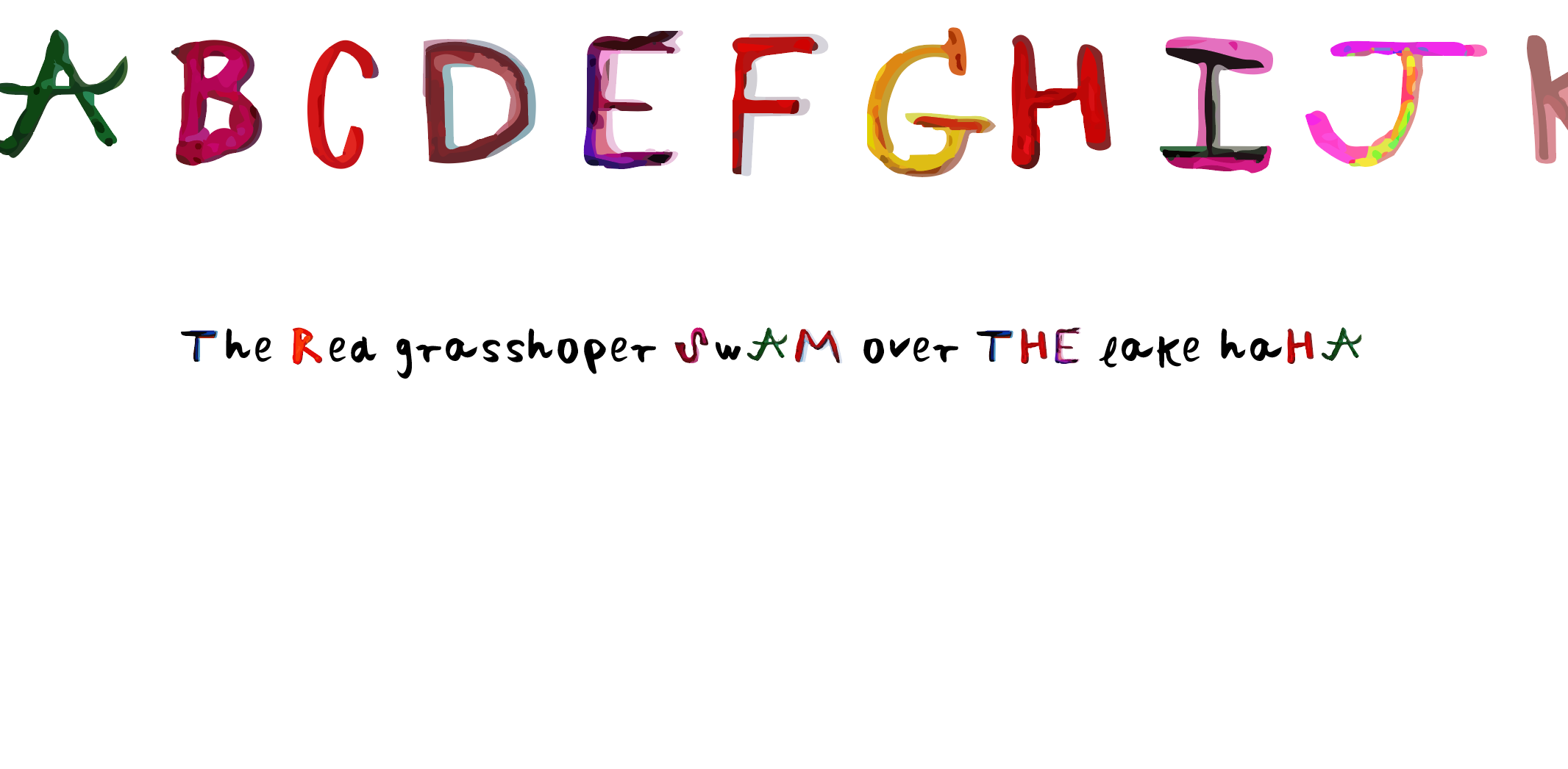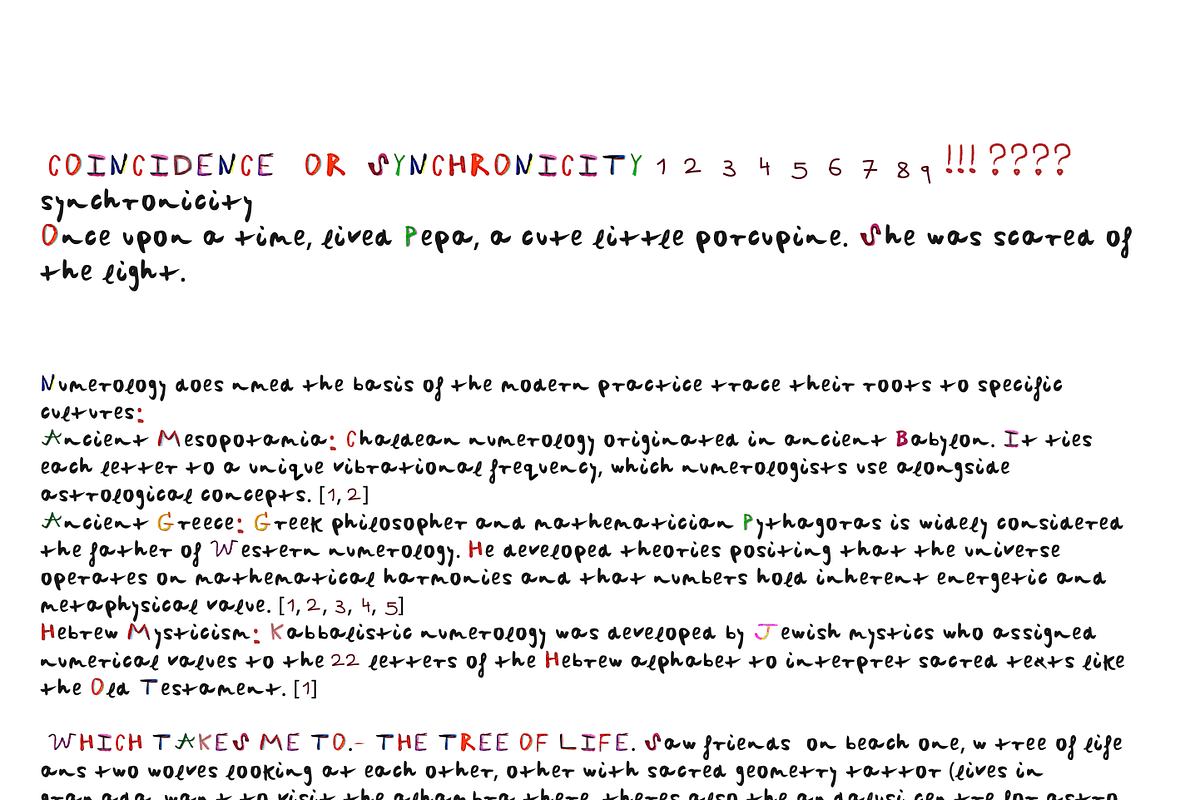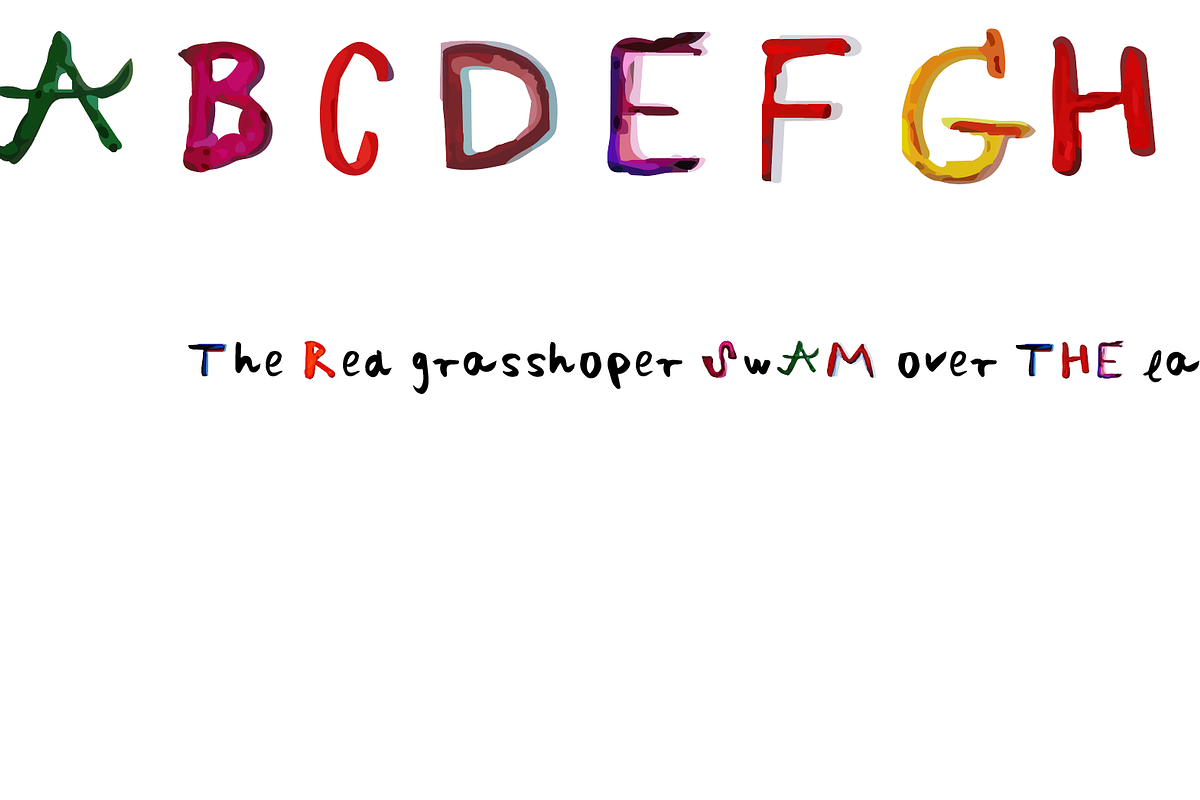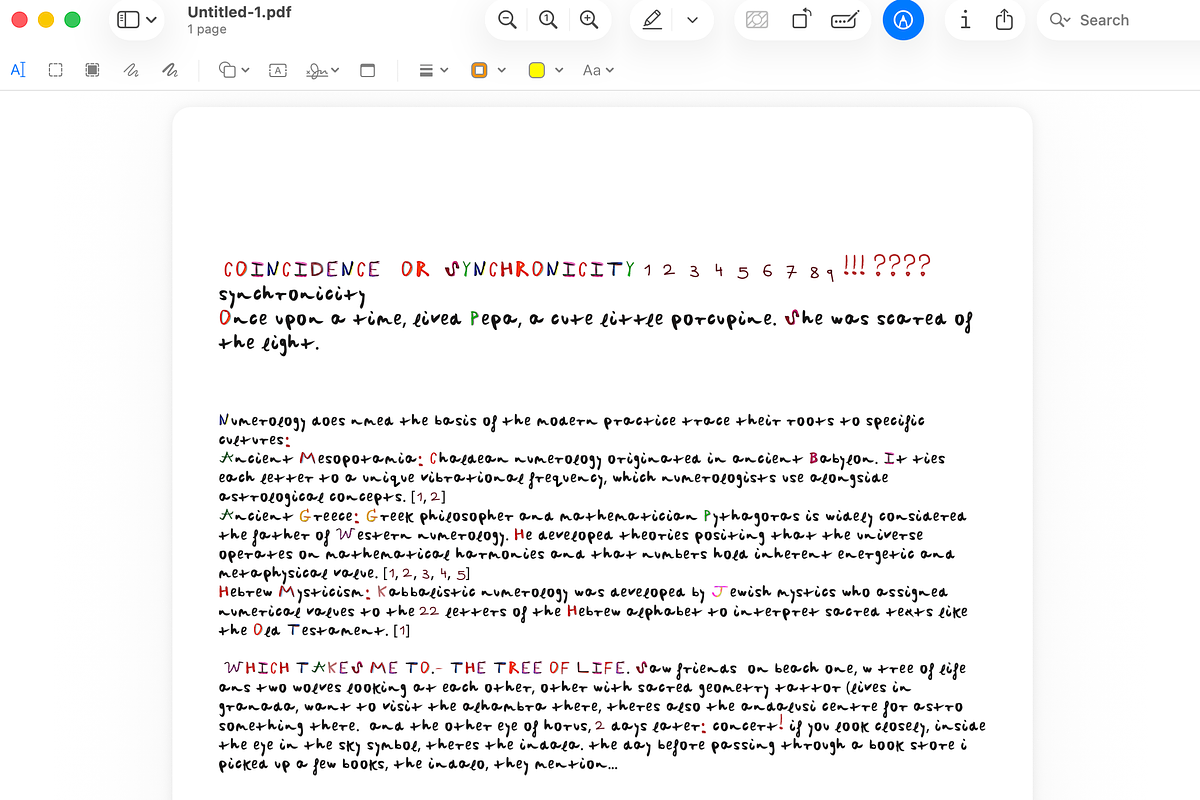
Jesus font
Cap letters are fun and in colour, non cap letters are in black. Playful, colourful fun jesus font, suitable for all religions. Handwritten.